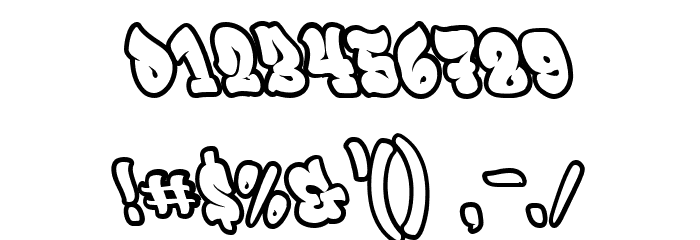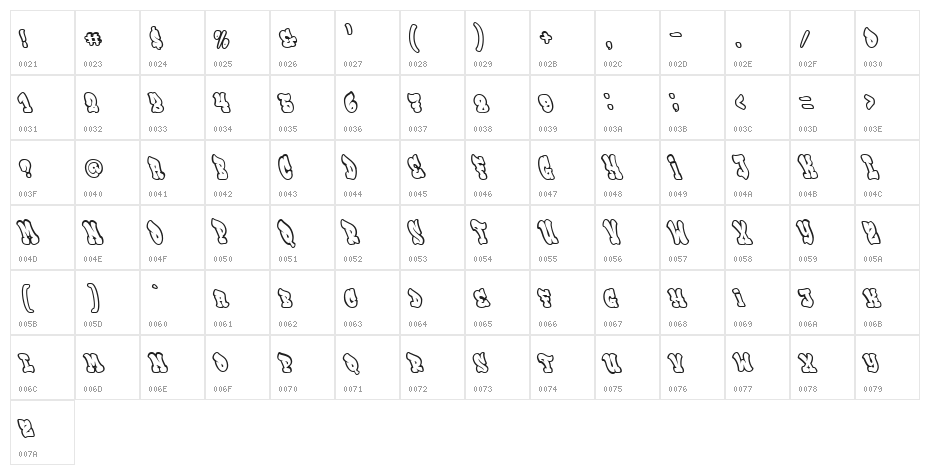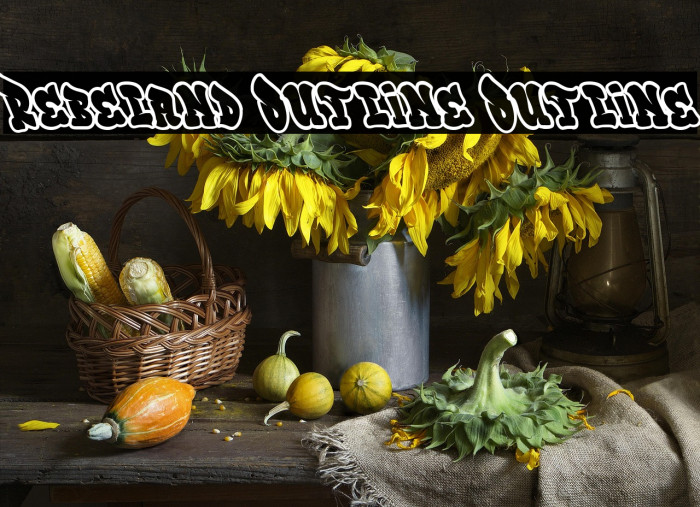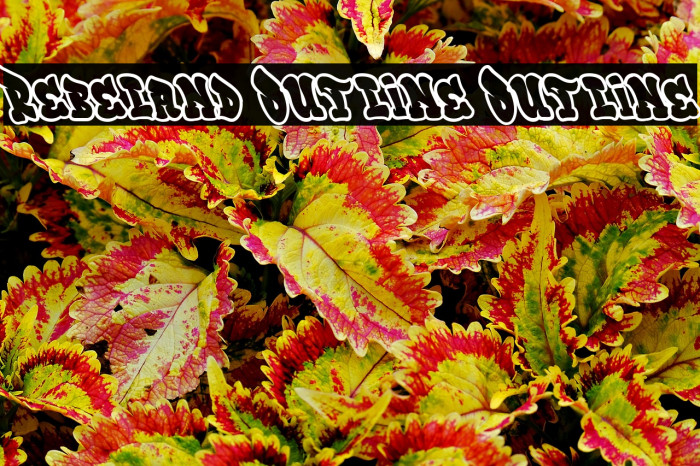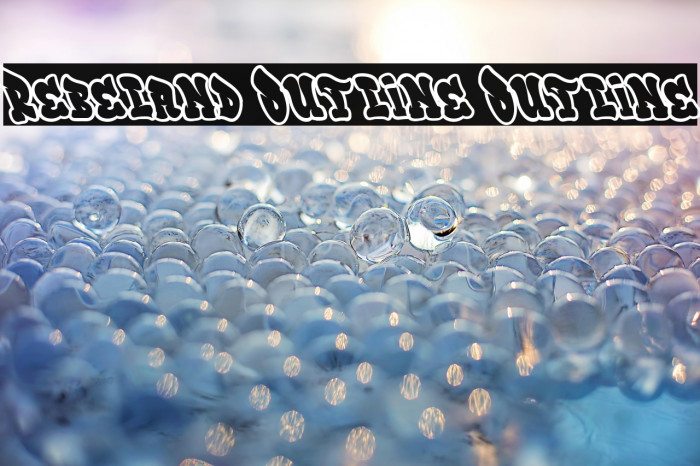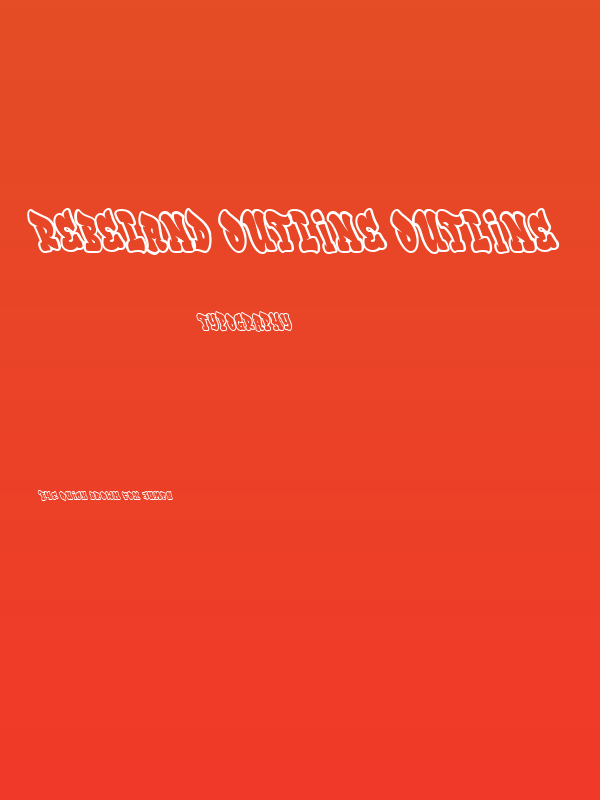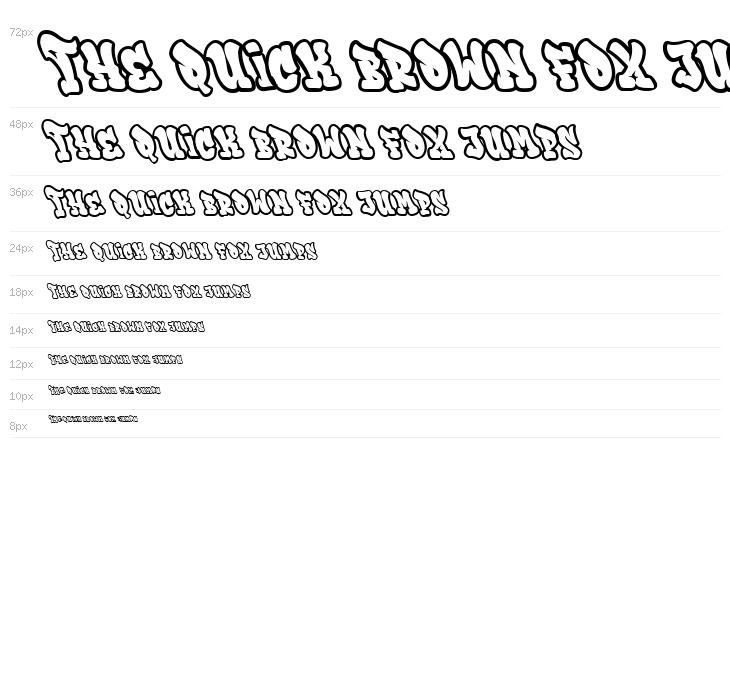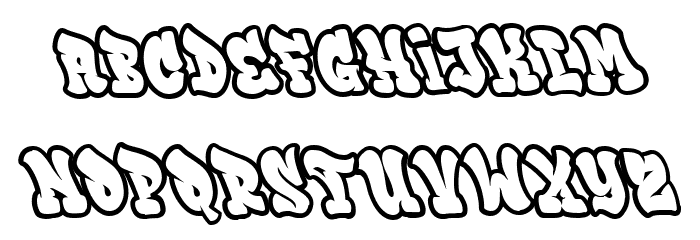
Rebeland Outline Font
Rebeland Outline Description
This font features a bold, playful outline style that exudes a sense of fun and creativity. The letters are characterized by thick, rounded edges and a bubbly appearance, making them stand out with a cartoonish flair. Each character is outlined, creating a striking contrast between the inner space and the outer lines. This design gives the font a three-dimensional effect, enhancing its visual appeal. The font maintains consistency across uppercase and lowercase letters, as well as numbers and special characters, ensuring a cohesive look. Its unique style is perfect for projects that require an eye-catching and informal touch.
| Overall Style | Playful, Cartoonish |
| Proposed Projects | Ideal for children's book covers, comic strips, playful branding, and event posters. |